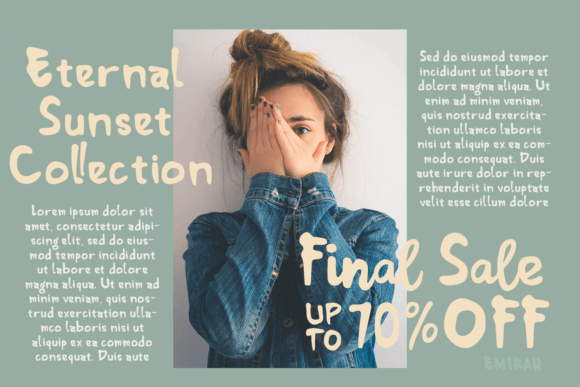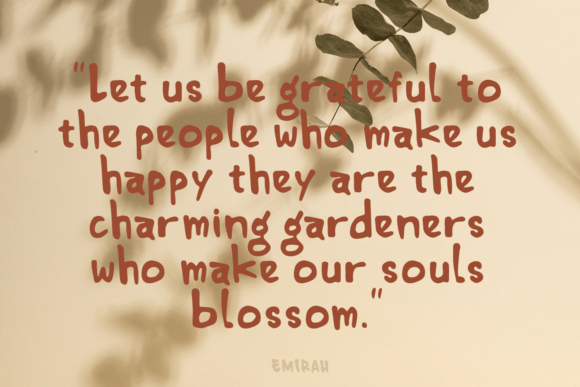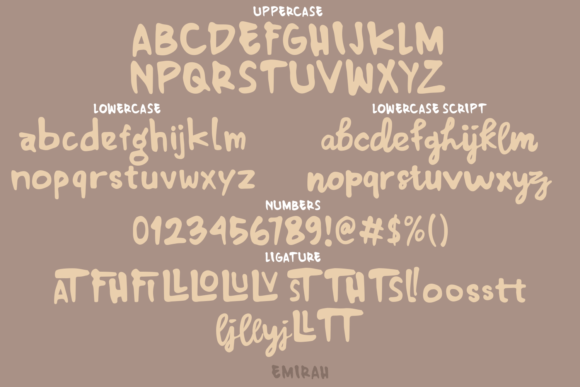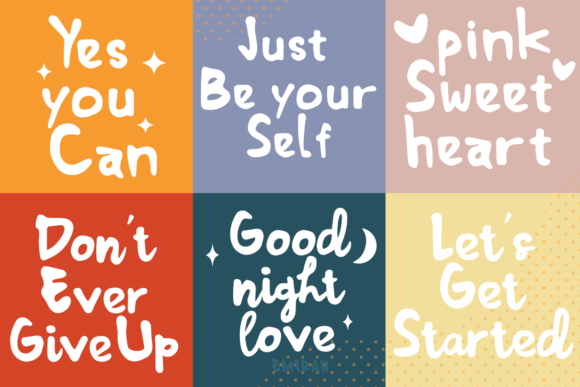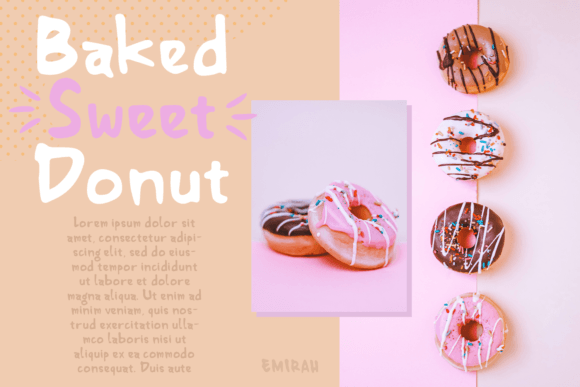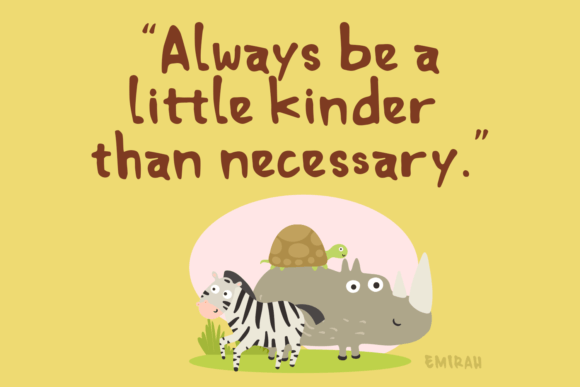
Introducing Emirah Font: The Ultimate Handwritten Font for Creative Projects
Are you a designer, crafter, or DIY enthusiast looking for a font that can add a touch of personality and whimsy to your projects? Look no further than Emirah Font, a cute and versatile handwritten font that’s perfect for a wide range of creative applications. In this article, we’ll explore the features and benefits of Emirah Font, and show you how it can elevate your book titles, children’s projects, school materials, branding, product packaging, invitations, quotes, T-shirts, labels, posters, logos, and more.
What is Emirah Font?
Emirah Font is a beautifully crafted handwritten font that’s designed to bring a sense of playfulness and charm to your projects. With its unique and quirky letterforms, Emirah Font is sure to capture the attention of your audience and leave a lasting impression. Whether you’re working on a children’s book, a school project, or a branding campaign, Emirah Font is the perfect choice for adding a touch of personality and whimsy.
Features of Emirah Font
So, what makes Emirah Font so special? Here are just a few of its key features:
- Cute and playful letterforms: Emirah Font features unique and quirky letterforms that are sure to add a touch of personality to your projects.
- Handwritten style: Emirah Font has a beautifully crafted handwritten style that’s perfect for adding a personal touch to your projects.
- Versatile: Emirah Font is perfect for a wide range of creative applications, from book titles and children’s projects to branding and product packaging.
- Easily readable: Despite its playful style, Emirah Font is still easily readable, making it perfect for use in body text and other applications where legibility is key.
Uses for Emirah Font
So, what can you use Emirah Font for? The possibilities are endless! Here are just a few ideas to get you started:
- Book titles: Add a touch of personality to your book titles with Emirah Font, perfect for children’s books, young adult fiction, and more.
- Children’s projects: Emirah Font is perfect for use in children’s projects, including activity sheets, worksheets, and educational materials.
- School materials: Teachers and educators can use Emirah Font to add a touch of personality to their school materials, including lesson plans, worksheets, and presentations.
- Branding: Use Emirah Font to create a unique and memorable brand identity for your business or organization.
- Product packaging: Add a touch of personality to your product packaging with Emirah Font, perfect for food labels, product tags, and more.
- Invitations: Use Emirah Font to create beautiful and unique invitations for parties, events, and more.
- Quotes: Add a touch of personality to your quotes and social media posts with Emirah Font.
- T-shirts: Use Emirah Font to create custom T-shirts and other apparel for your business, organization, or event.
- Labels: Emirah Font is perfect for use in labels, including address labels, file labels, and more.
- Posters: Use Emirah Font to create eye-catching posters for events, promotions, and more.
- Logos: Emirah Font can be used to create unique and memorable logos for your business or organization.
Why Choose Emirah Font?
So, why should you choose Emirah Font for your next project? Here are just a few reasons:
- Unique and memorable: Emirah Font is a unique and memorable font that’s sure to capture the attention of your audience.
- Versatile: Emirah Font is perfect for a wide range of creative applications, making it a great addition to any designer’s toolkit.
- Easily readable: Despite its playful style, Emirah Font is still easily readable, making it perfect for use in body text and other applications where legibility is key.
- Cute and playful: Emirah Font is a cute and playful font that’s sure to add a touch of personality to your projects.
| Font Name | Emirah Font |
| Author | madeDeduk |
In conclusion, Emirah Font is a versatile and unique handwritten font that’s perfect for a wide range of creative applications. With its cute and playful letterforms, easily readable style, and versatility, Emirah Font is a great addition to any designer’s toolkit. Whether you’re working on a children’s book, a school project, or a branding campaign, Emirah Font is sure to bring a touch of personality and whimsy to your project. So why wait? Download Emirah Font today and start creating!